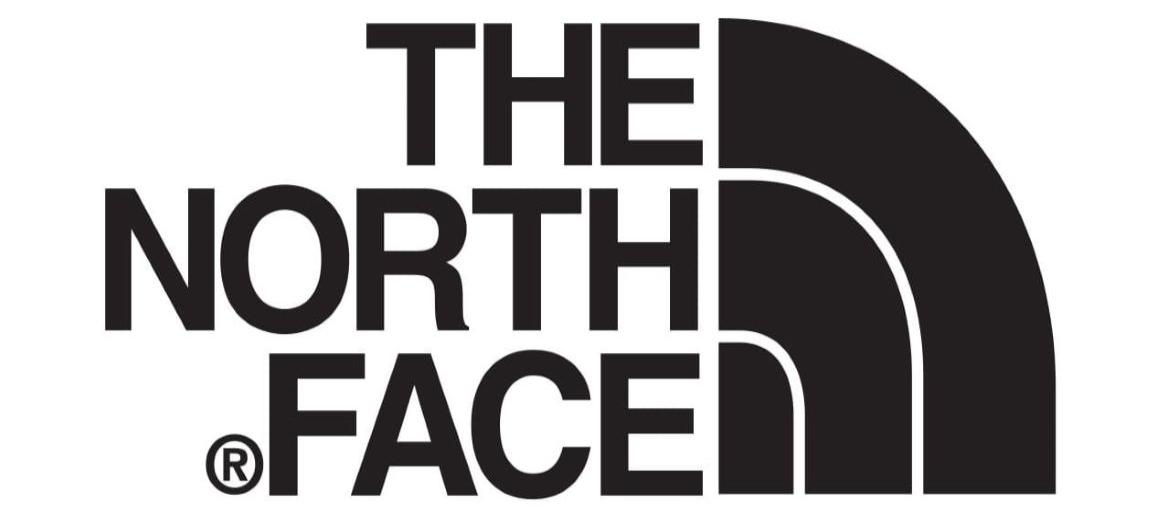
The North Face Font
What is The The North Face Font?
The North Face font is most closely associated with Helvetica Pro Bold, a clean, modern, and highly legible commercial typeface. Its strong geometric structure and balanced proportions match the rugged, no-nonsense aesthetic of the brand’s iconic logo. While Helvetica Pro Bold is a premium font, there are free alternatives available that capture a similar bold, utilitarian feel—perfect for projects inspired by The North Face style.
About The North Face
The North Face, founded in 1966 in San Francisco, is one of the world’s most recognizable outdoor apparel and equipment brands. Originally starting as a mountaineering retail store, it soon expanded into designing high-performance gear for climbers, hikers, skiers, and explorers. Known for its commitment to durability, innovation, and outdoor adventure, the brand has become a staple in both technical performance wear and everyday street fashion. The North Face’s bold typography and half-dome logo reflect its spirit of exploration and dedication to pushing the boundaries of what’s possible in the great outdoors.